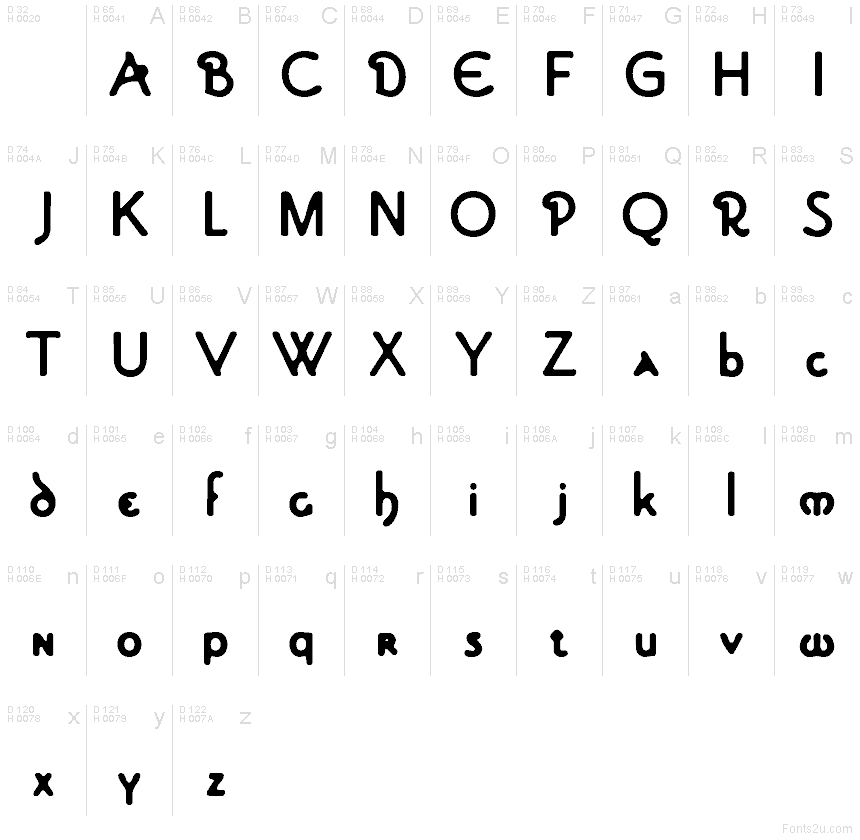
CS Nature Drawn font by Craft Supply Co. is a free bold hand-drawn display font. Part of the CS Nature family, it stands out with rounded, inky strokes and softly swollen curves that feel carved rather than engineered. The rhythm is lively yet readable—thick, friendly forms with playful notches and leaflike angles that add warmth without turning messy. It’s the rare display face that feels organic and modern at once.
Using CS Nature Drawn, headlines gain a tactile, outdoorsy voice that shines on eco branding, farmers’ market posters, kids’ book covers, wellness packaging, outdoor event flyers, and craft labels. This free font loves big sizes and generous letterspacing; pair it with a clean geometric sans for body copy to let the hand-drawn character breathe.